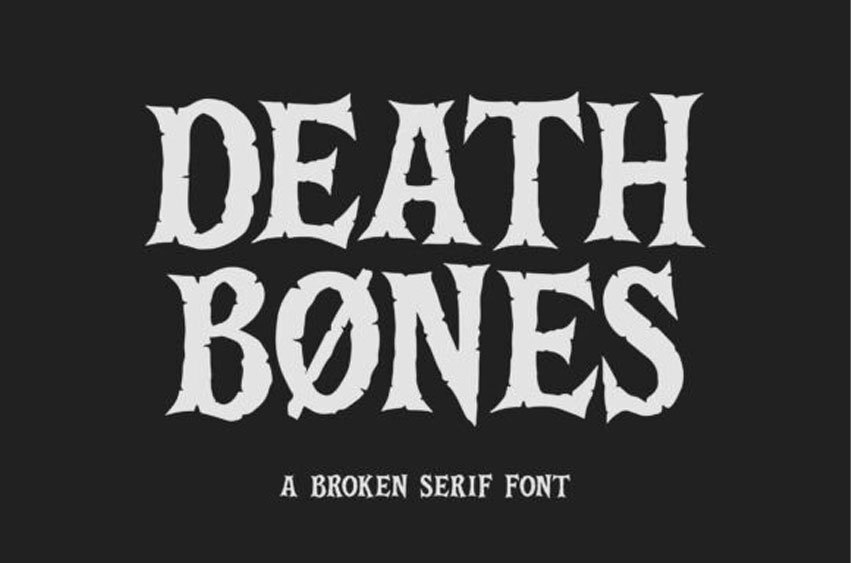
Death Bones Font is a broken serif font designed for professional project branding, including logotypes, watermarks, posters, branding, promotions, and product packaging.
Every letter has a bouncy serif-style design.